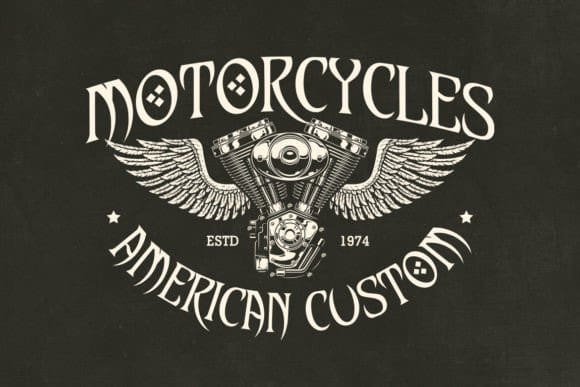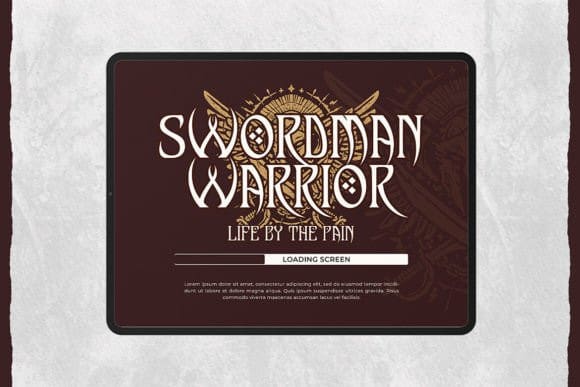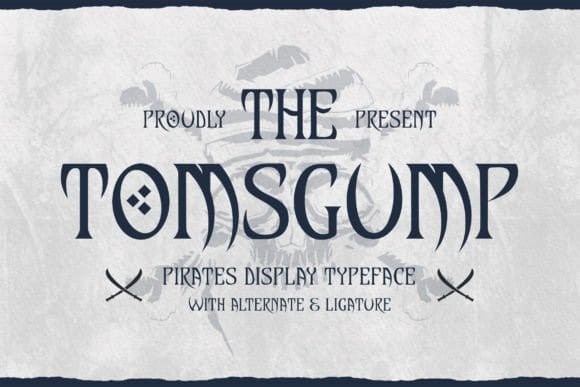
Tomsgump Pirates Font
Tomsgump Pirates Font – a pirates display typeface that captures the daring spirit of the high seas! With its bold and nautical-inspired letterforms, “Tomsgump Pirates” brings a touch of pirate charm to any project. Each character is meticulously designed to infuse your designs with maritime excitement, making it perfect for adventurous branding, captivating posters, pirate-themed events, and more.
Embrace the seafaring energy of “Tomsgump” as it effortlessly enhances your designs. Whether you’re crafting treasure map-inspired graphics, captivating event announcements, pirate-inspired logos, or eye-catching social media content, this typeface will captivate your audience with its adventurous and spirited style.